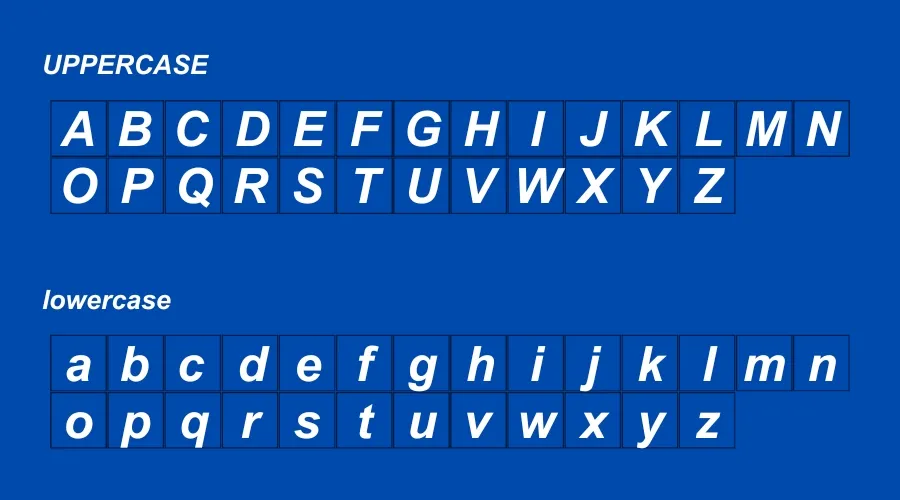
Arial Bold Italic Font
About Arial Bold Italic Font
Arial Bold Italic Font features a traditional feel with a cutting-edge turn. This typeface could be an awesome choice for any venture that needs a touch of sentimentality.
Because the look is extremely amazing. It is extensively utilized to create beautiful backgrounds. The font corresponds to often utilized by creators to create their designs look lovely. Because the look is extremely amazing. There are a variety of ways to use this style for social media posts.
It contains both upper- and lower-case letters, numbers, and some punctuation marks. The text style is flawless as long as each design demands a fun and unusual feel.